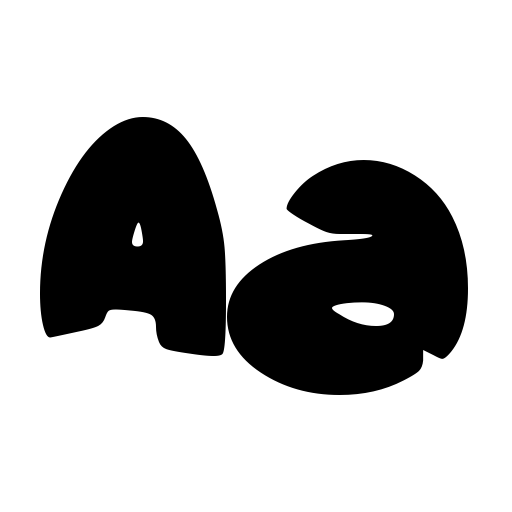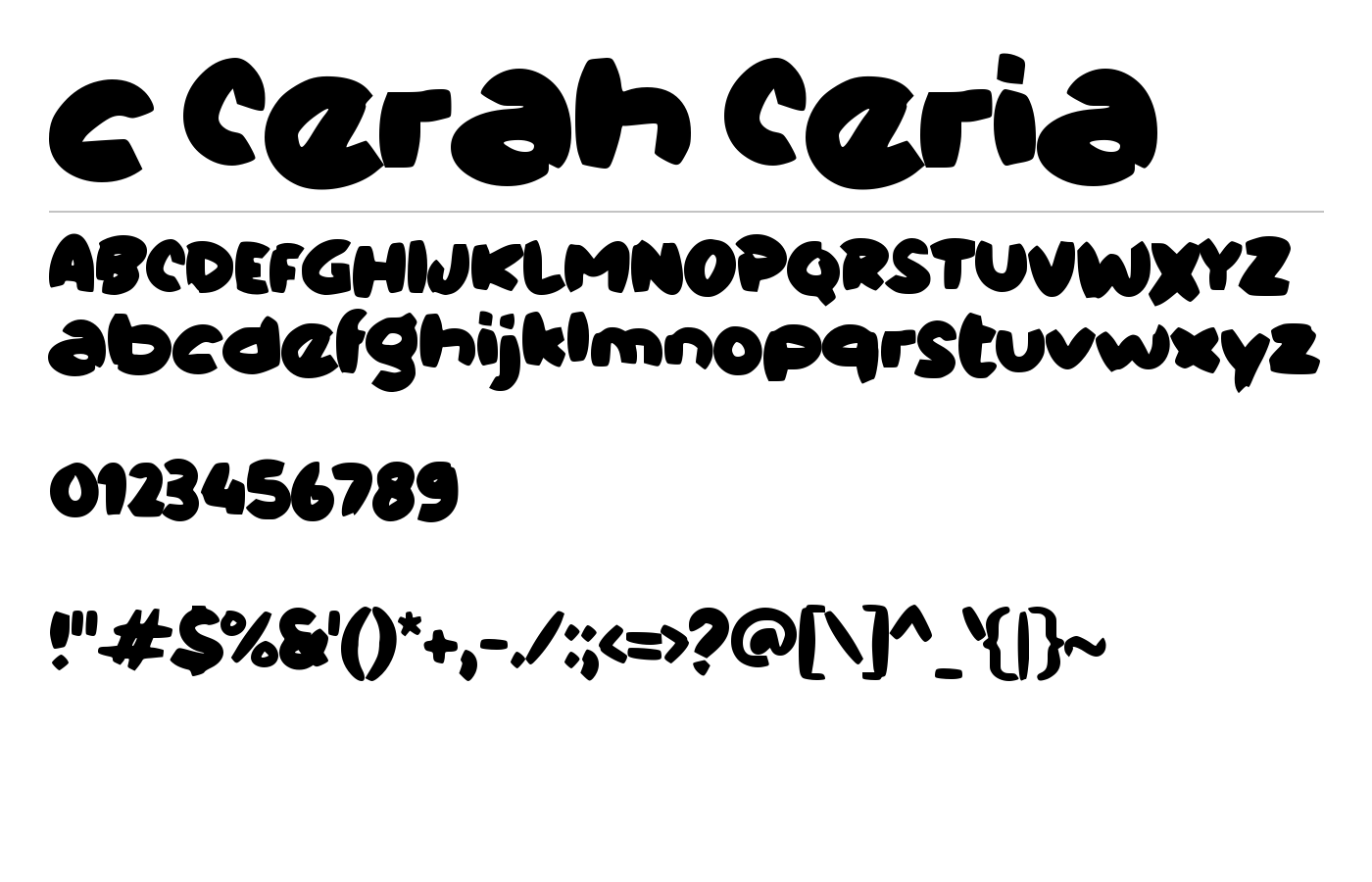
Cerah Ceria is a bold, playful handwritten font with thick, rounded strokes that give it a fun and approachable personality. Its informal, brush-like forms make it perfect for joyful, creative projects such as children's books, casual branding, and lively posters, where a friendly and energetic tone is desired. This font's strong presence and unique charm bring warmth and cheerfulness to any design.
c Cerah Ceria Font